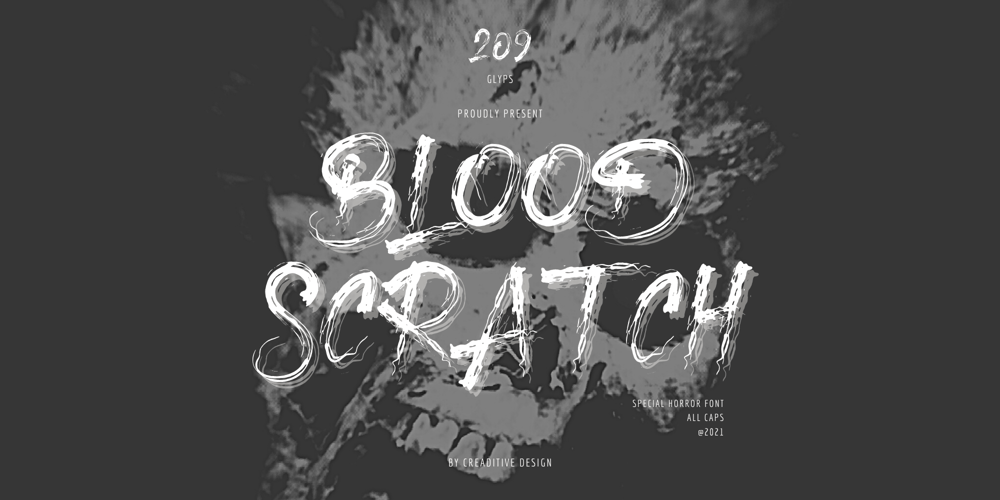
Blood Scratch Font Family was designed by Aditiyo Dwi Putranto and published by Creaditive Design. Blood Scratch contains 2 styles and family package options. Blood Scratch is a creepy and brushed display font. It is perfectly suitable for any Halloween-related project or crafty idea, creepy film project and horror themes will be nice! The only limit is your imagination.